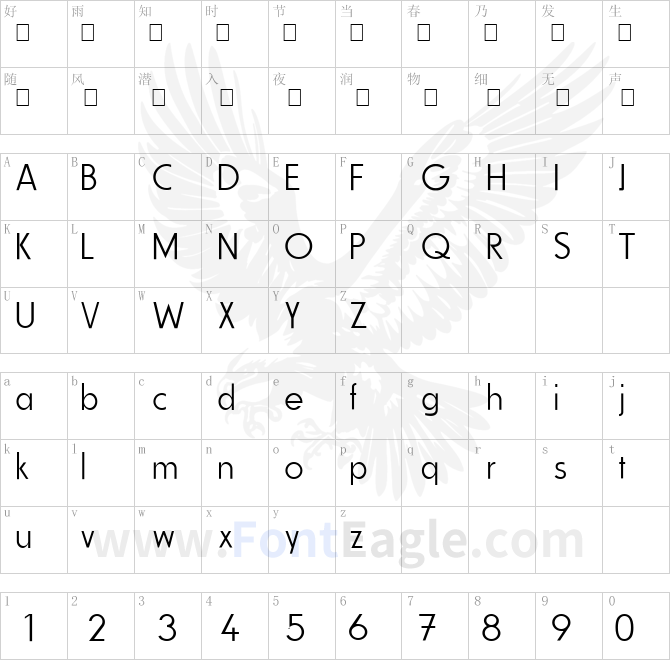
- Font name:Fundamental Brigade Scvhlank
- Font Subfamily ID:Fundamentale Brigade
- Font Full Name:Fundamental Brigade Scvhlank
- Postscript:FundamentalBrigadeScvhlank